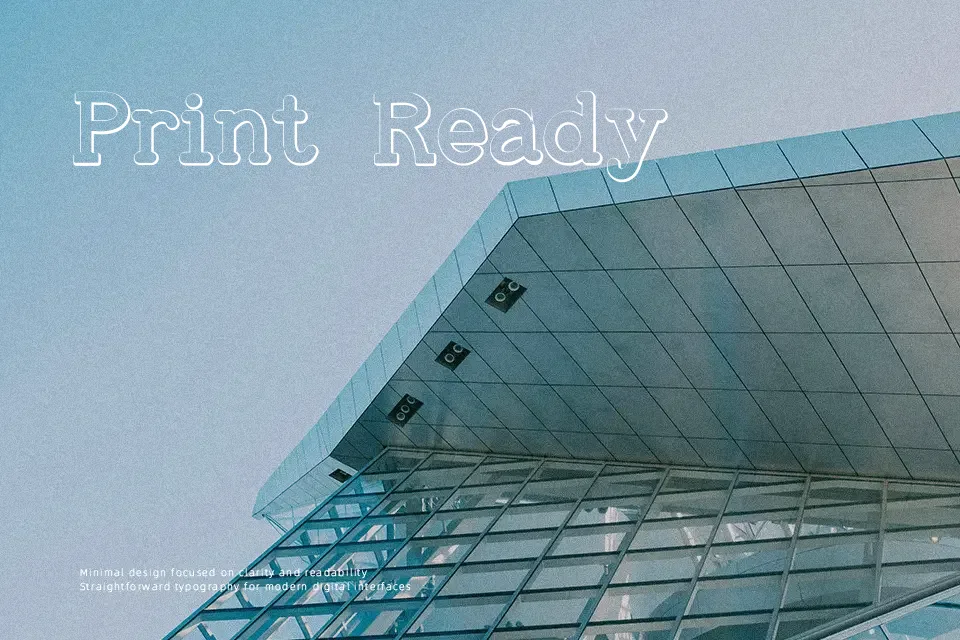
Baltimore Typewriter Beveled Font
Designed by Intellecta Design
Baltimore Typewriter Beveled uses chunky typewriter letterforms with a built-in beveled edge that adds subtle 3D relief and a slightly rough, printed finish. The spacing is relatively tight, so words feel compact and bold rather than airy. Visually it leans into a decorative, vintage typewriter mood, better suited to titles, logos, stamps, or labels than to dense reading. It works well for retro crime covers, zine-style posters, or nostalgic packaging that needs a distressed mechanical voice. However, the beveling and texture can reduce legibility at very small sizes or in long paragraphs, so it is not the best choice for body copy or UI text.
retro book or zine covers
typewriter-themed logos and badges
vintage-style poster headlines
labels or stamps with a mechanical look
long paragraph text or articles
minimalist corporate reports
small UI labels or navigation text
highly formal, luxury branding